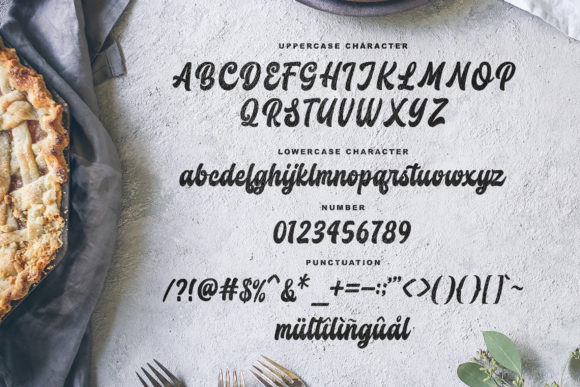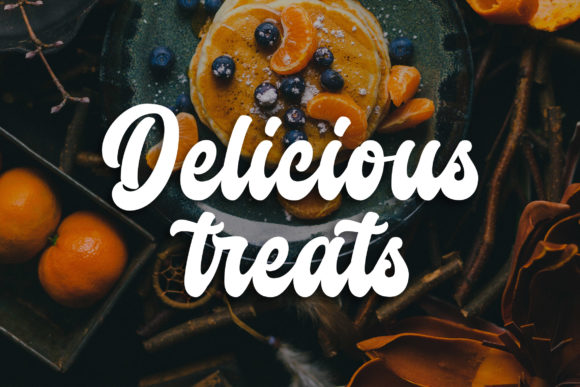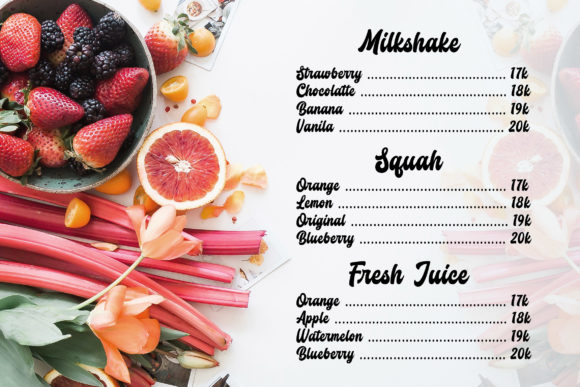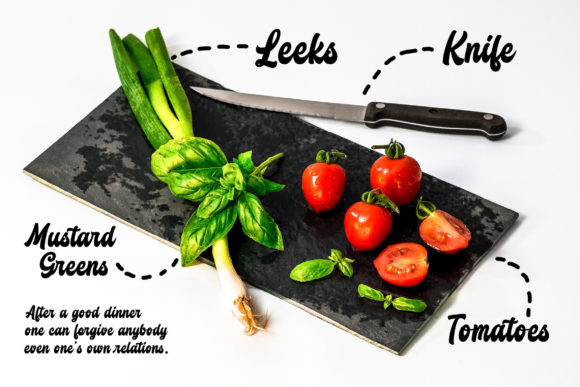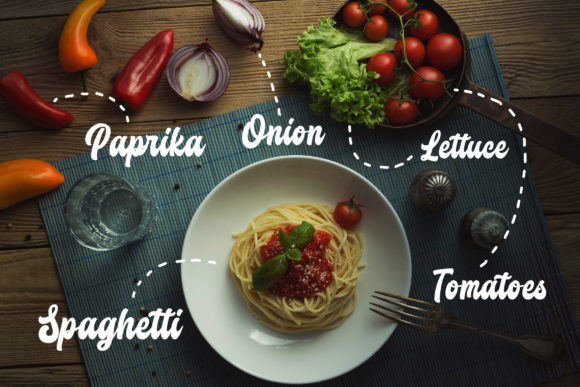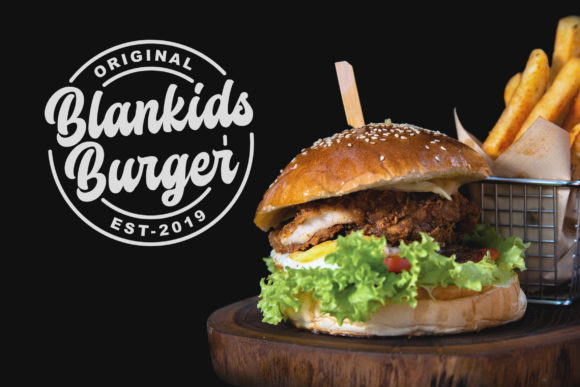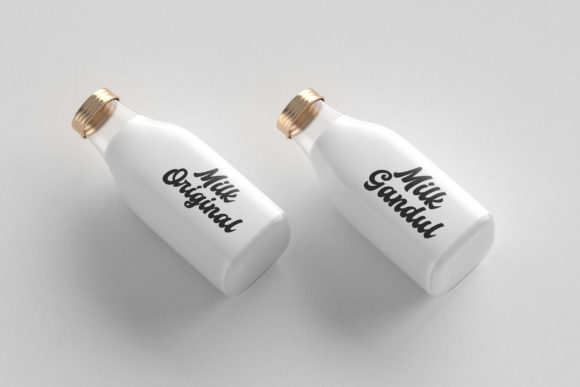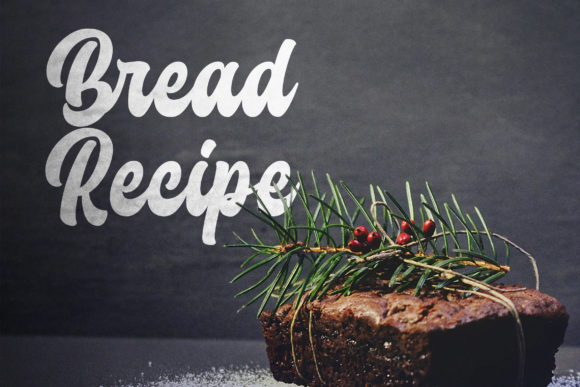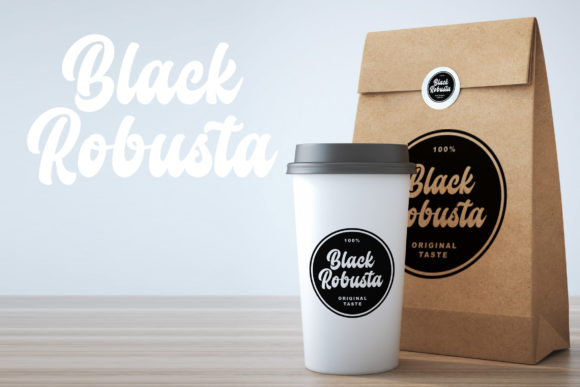
HomeScript FontsButchery Font Script Fonts Butchery Font FacebookXPinterestWhatsApp Butchery Font Poster 2 Butchery Font Poster 3 Butchery Font Poster 4 Butchery Font Poster 5 Butchery Font Poster 6 Butchery Font Poster 7 Butchery Font Poster 8 Butchery Font Poster 9 Butchery Font Poster 10 About Butchery Font Butchery is a fun an cute handwritten font with a homemade feel. Fall in love with its romantic charm! DOWNLOAD ON CREATIVE FABRICAThis font is sold and delivered by Creative Fabrica. Font Canyon may earn a commission if you buy through this link. People also explored Rise Love Font Ruth Clair Font About AZ Storm Font Beach Moment Font Fonix Font Hillpark Script Font Rockford Cyklops Font Jules Thicket Font 423 0 TagsButchery Font Previous articleDistressered FontNext articlePasto Font LEAVE A REPLY Cancel reply Comment: Please enter your comment! Name:* Please enter your name here Email:* You have entered an incorrect email address! Please enter your email address here Website: Save my name, email, and website in this browser for the next time I comment. Personal Use Free Super Caramel Font Personal Use Free Read more about this font Bulky Personal Use Free Read more about this font BD Algebra Personal Use Free Read more about this font Carnivals Personal Use Free Read more about this font BLOG How to Install and Use Fonts on Windows, macOS, and Web Projects How to Install and Use Fonts on Windows, macOS, and Web Projects Fonts are a crucial part of design and branding. Whether you’re designing a... Best Fonts for T-Shirt Design – Top 2025 Picks Exploring Font Trends Free Fonts Risk: Why Free Fonts Can Be Dangerous for Designers